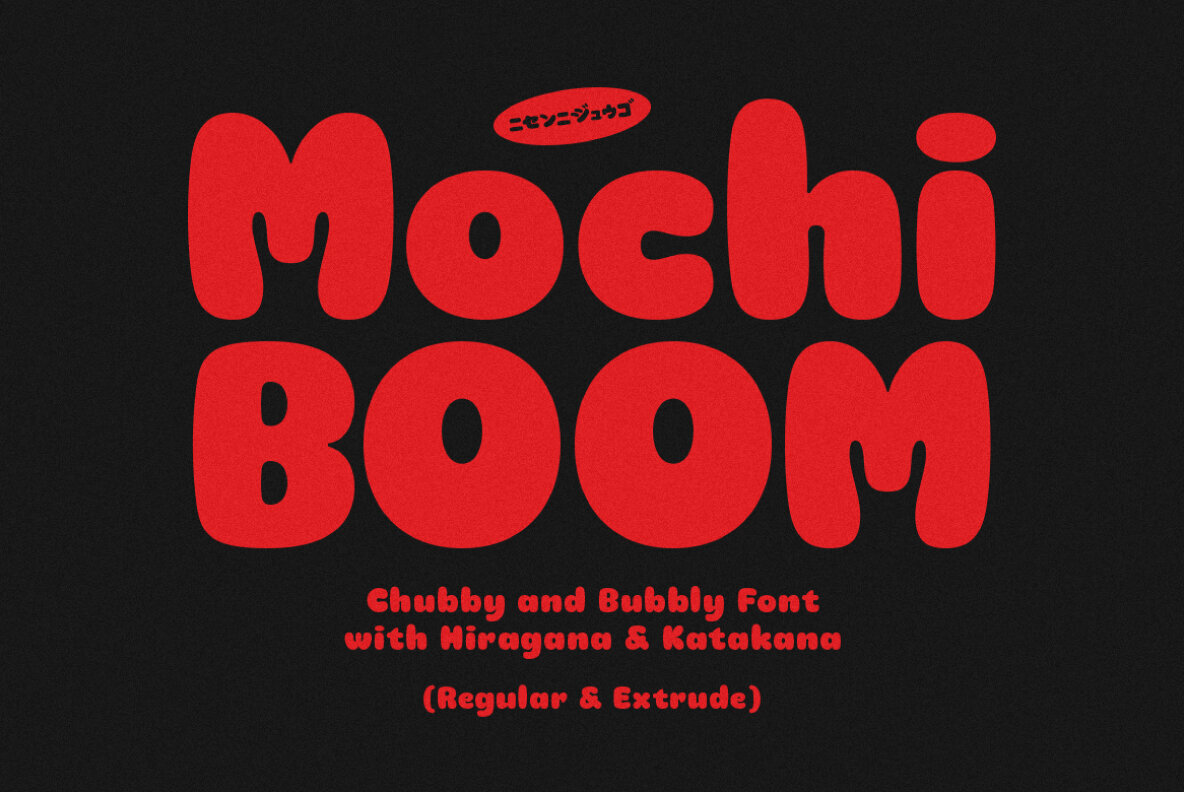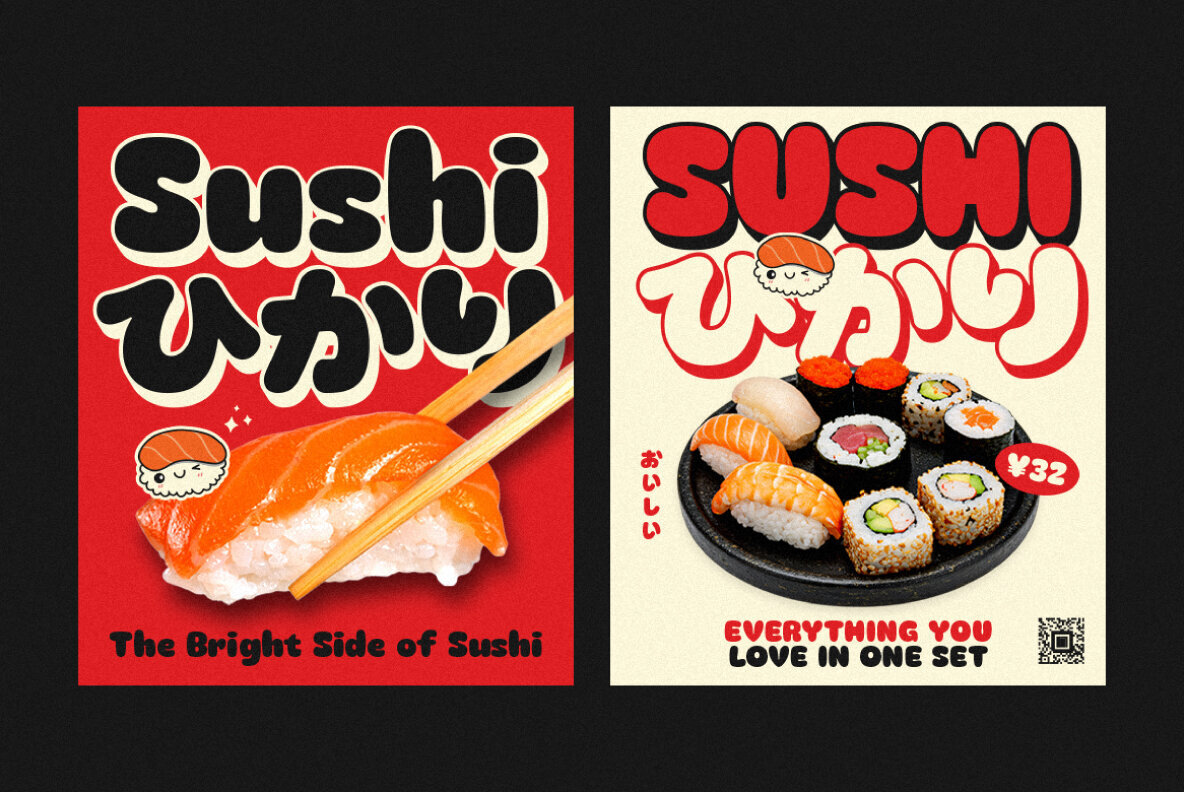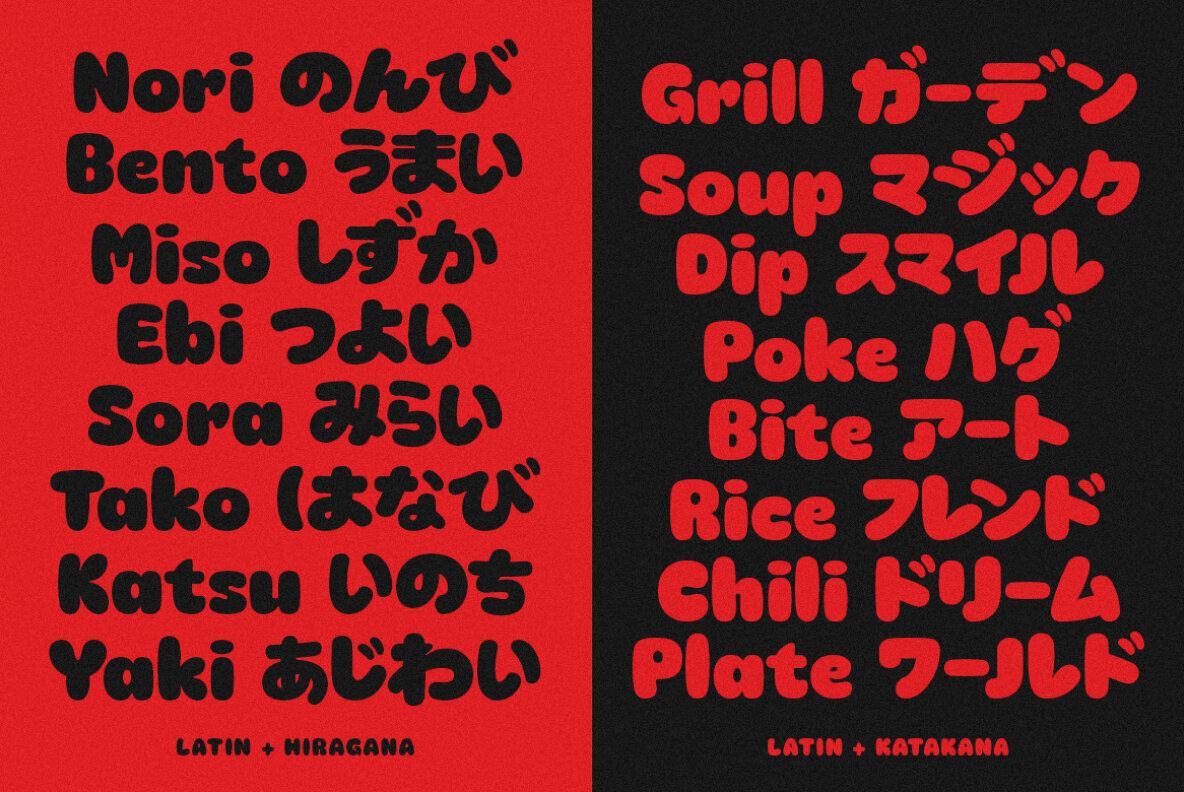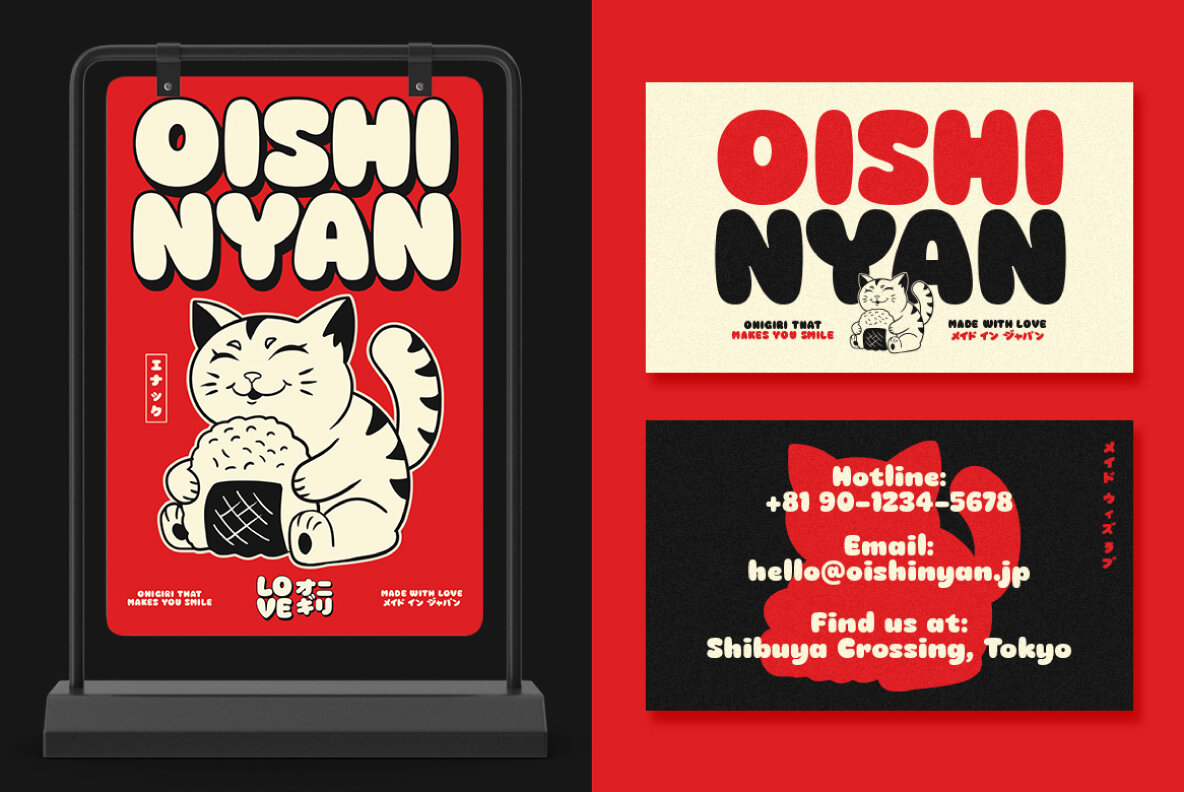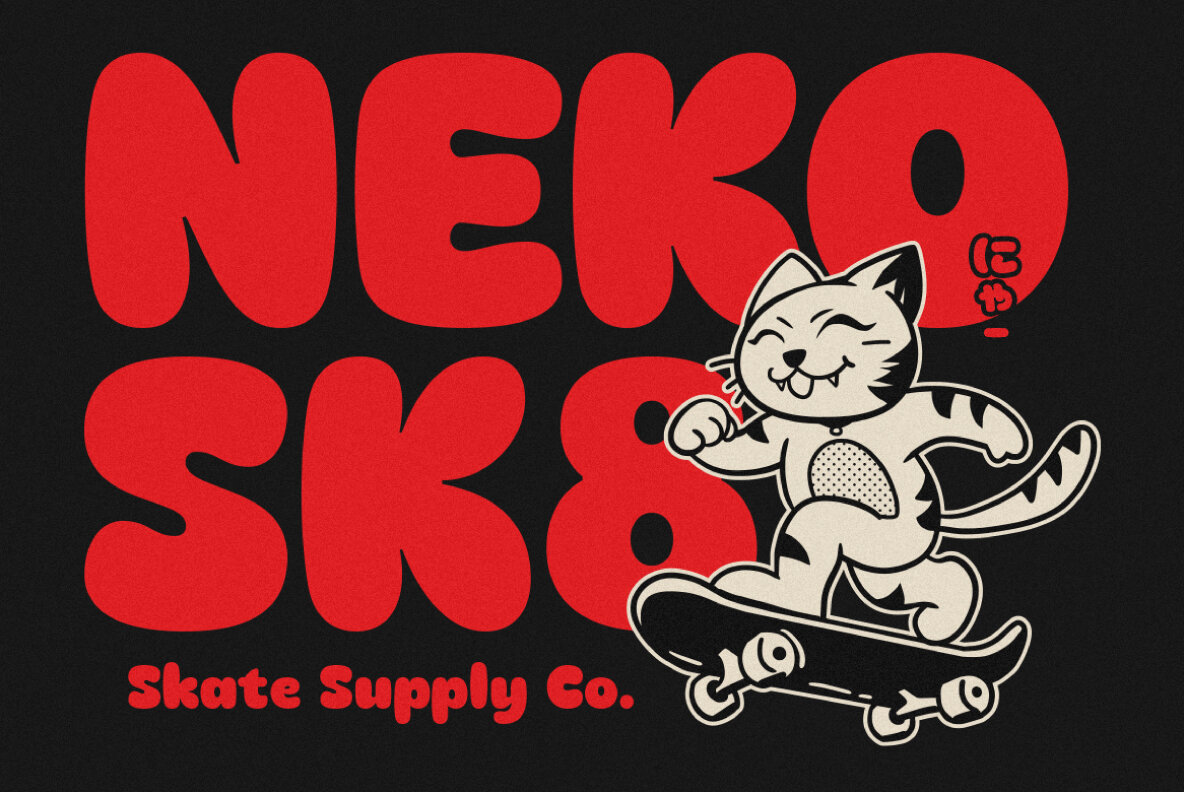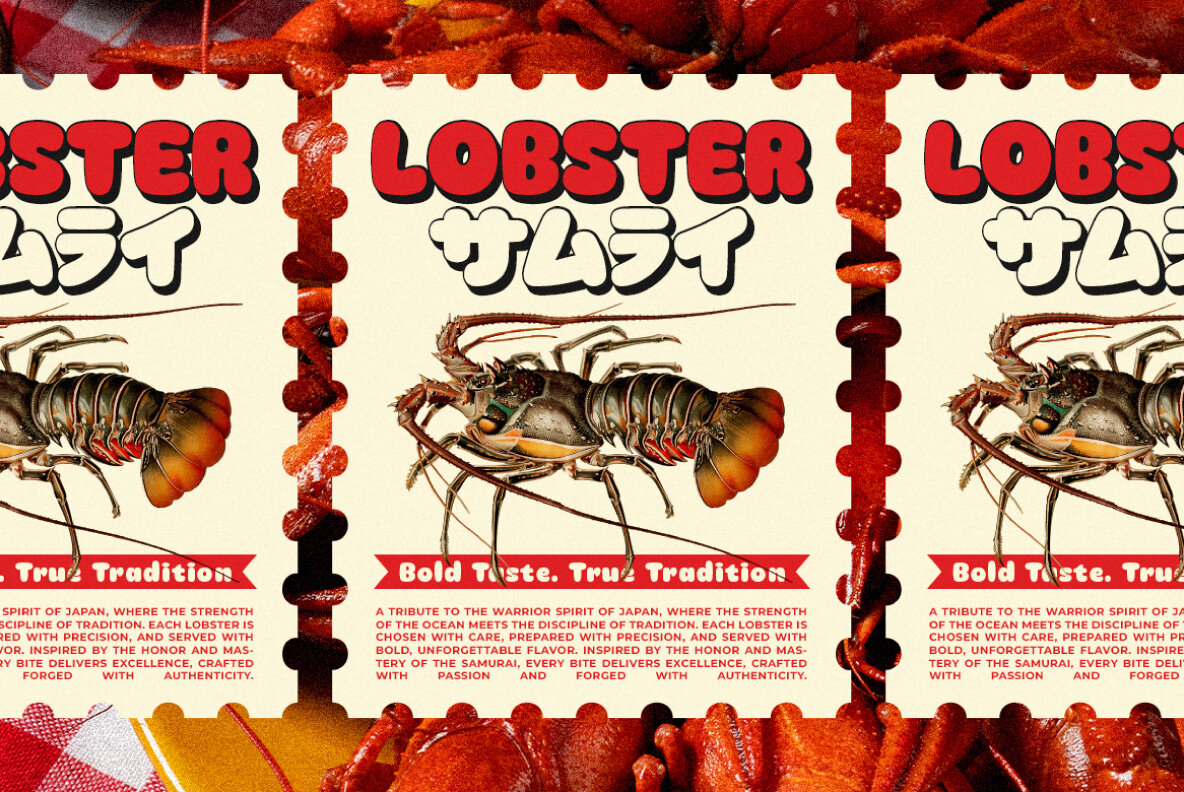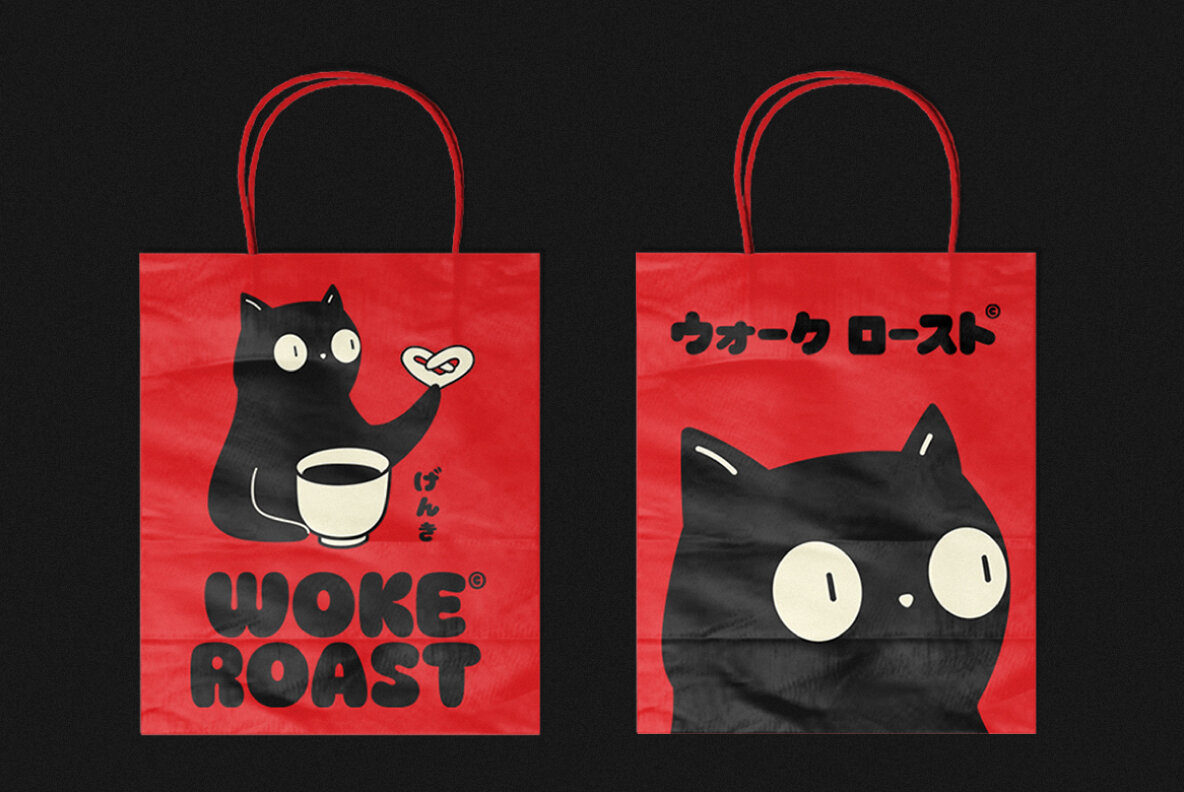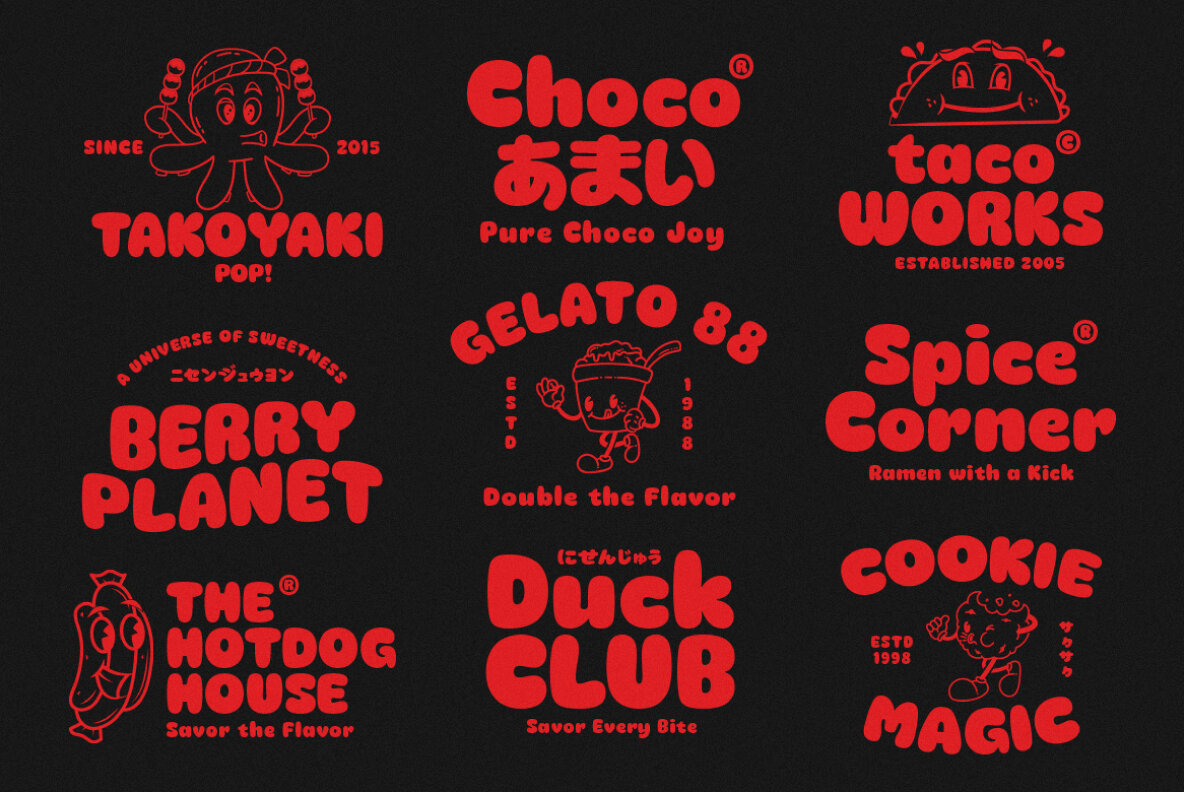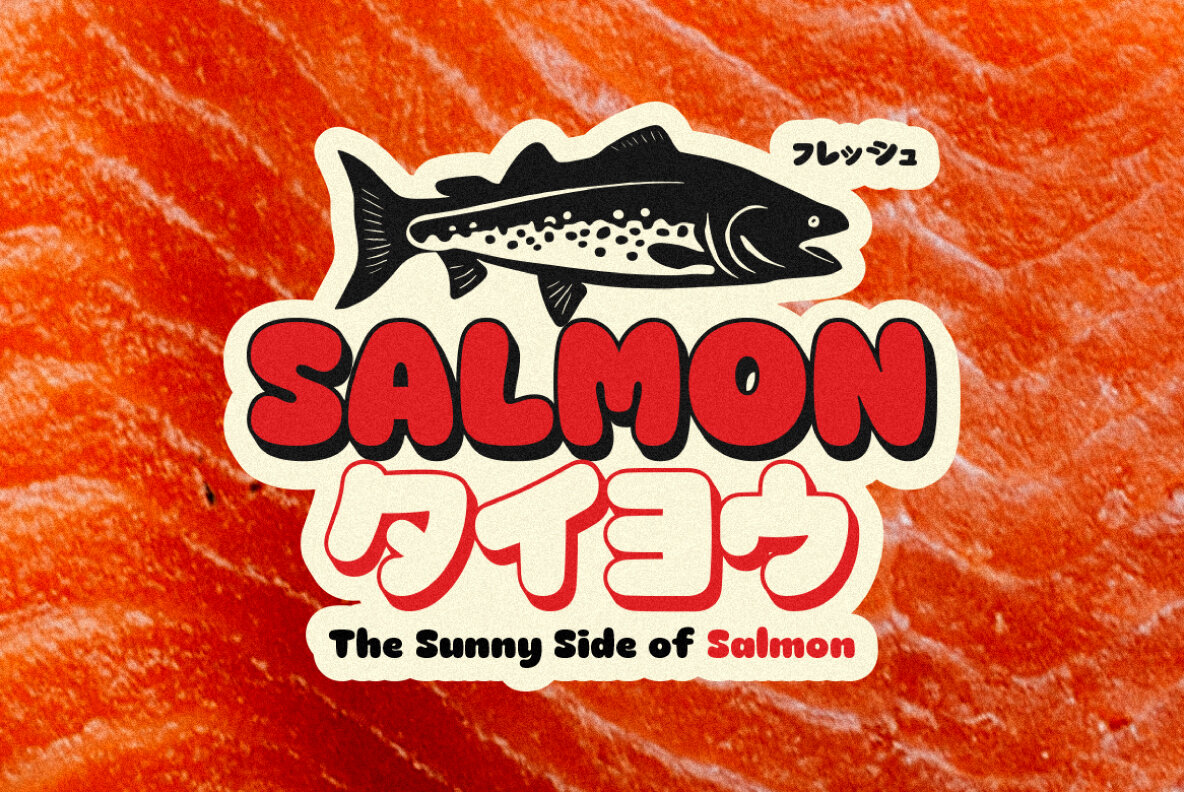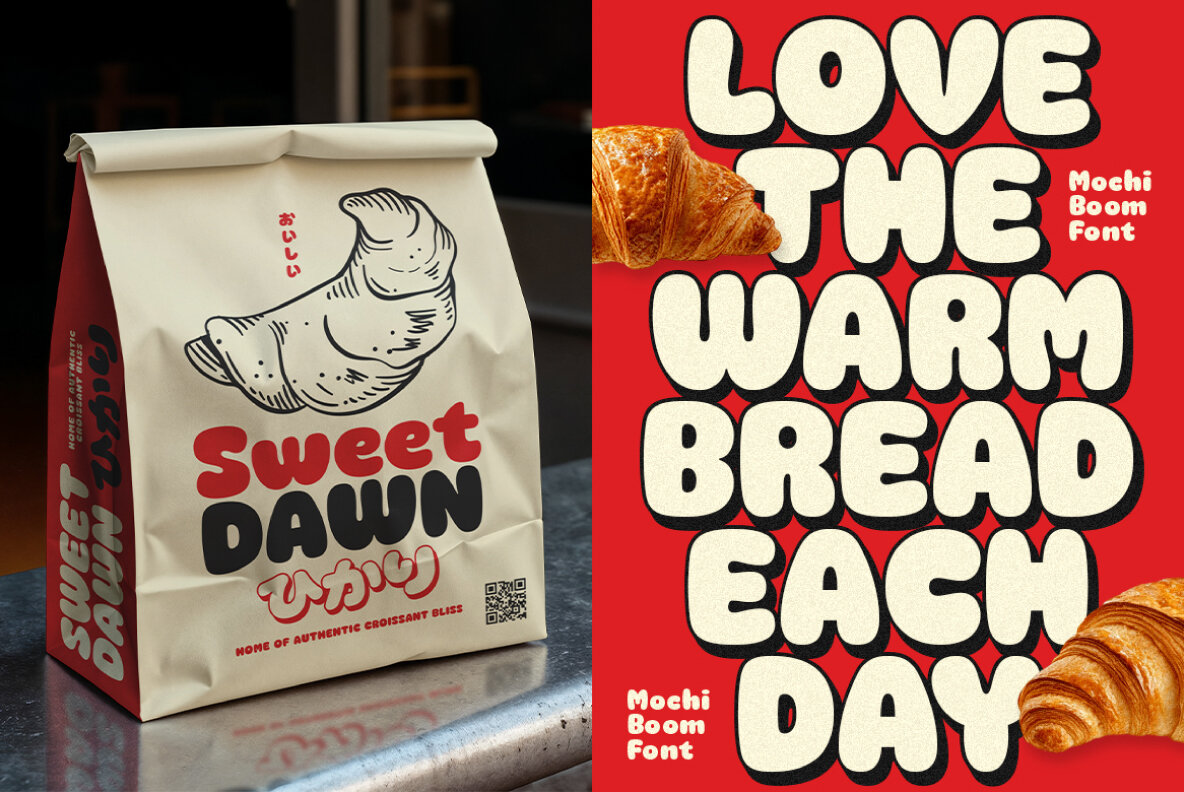
Mochi Boom Font
Embodying the essence of mochi's soft and chewy allure, Mochi Boom is a display font that delights with its rounded, playful forms. Ideal for food brands, packaging, and posters, this typeface lends a cheerful flair to projects that call for a warm and friendly aesthetic. The font offers comprehensive support for both Latin letters and Japanese Hiragana and Katakana, minus youon, allowing for captivating and distinctive typography. Whether crafting logos or social media graphics, Mochi Boom infuses a charming, joyful energy into every word.Mochi Boom: Playful Bubbly Font